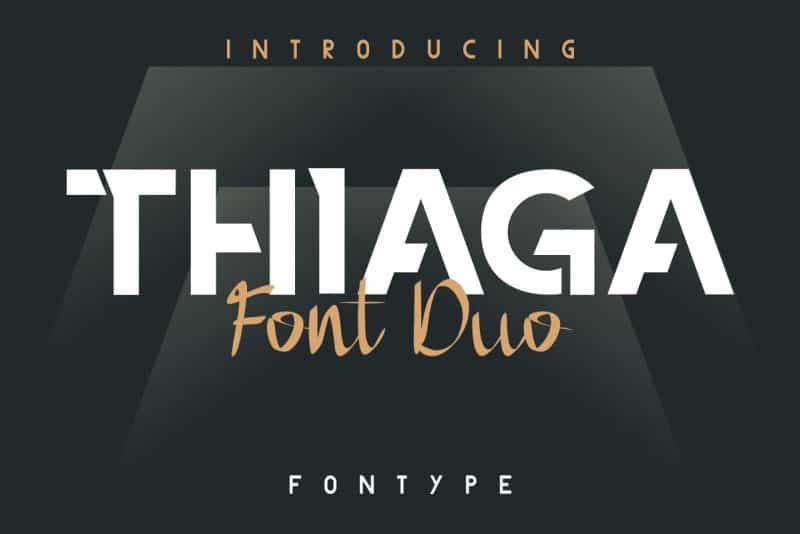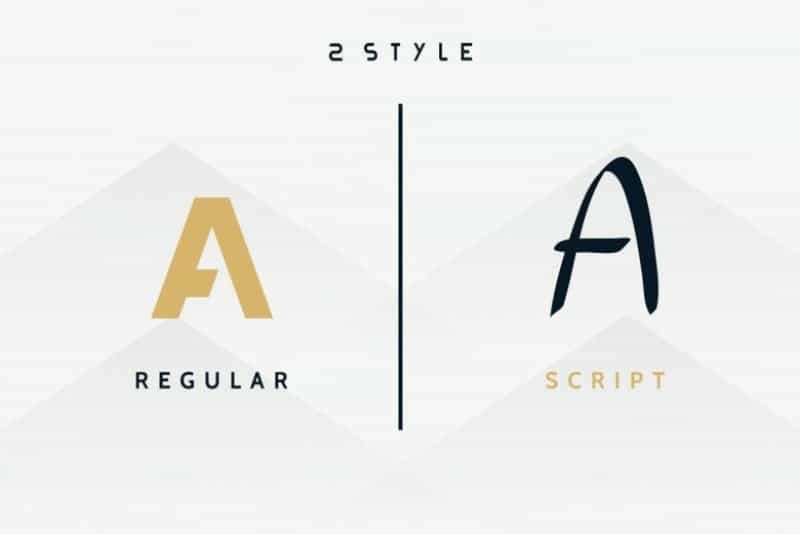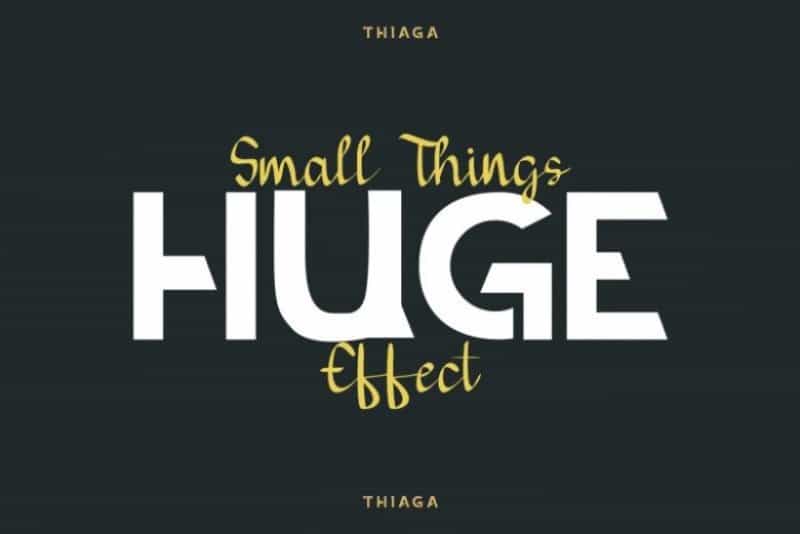
Hi Everyone!Introducing our newest font : THIAGA!This is a new modern font DUO : Sans and Script: Modern Futuristic Sans with mono-spaced look and script hand- writing style.